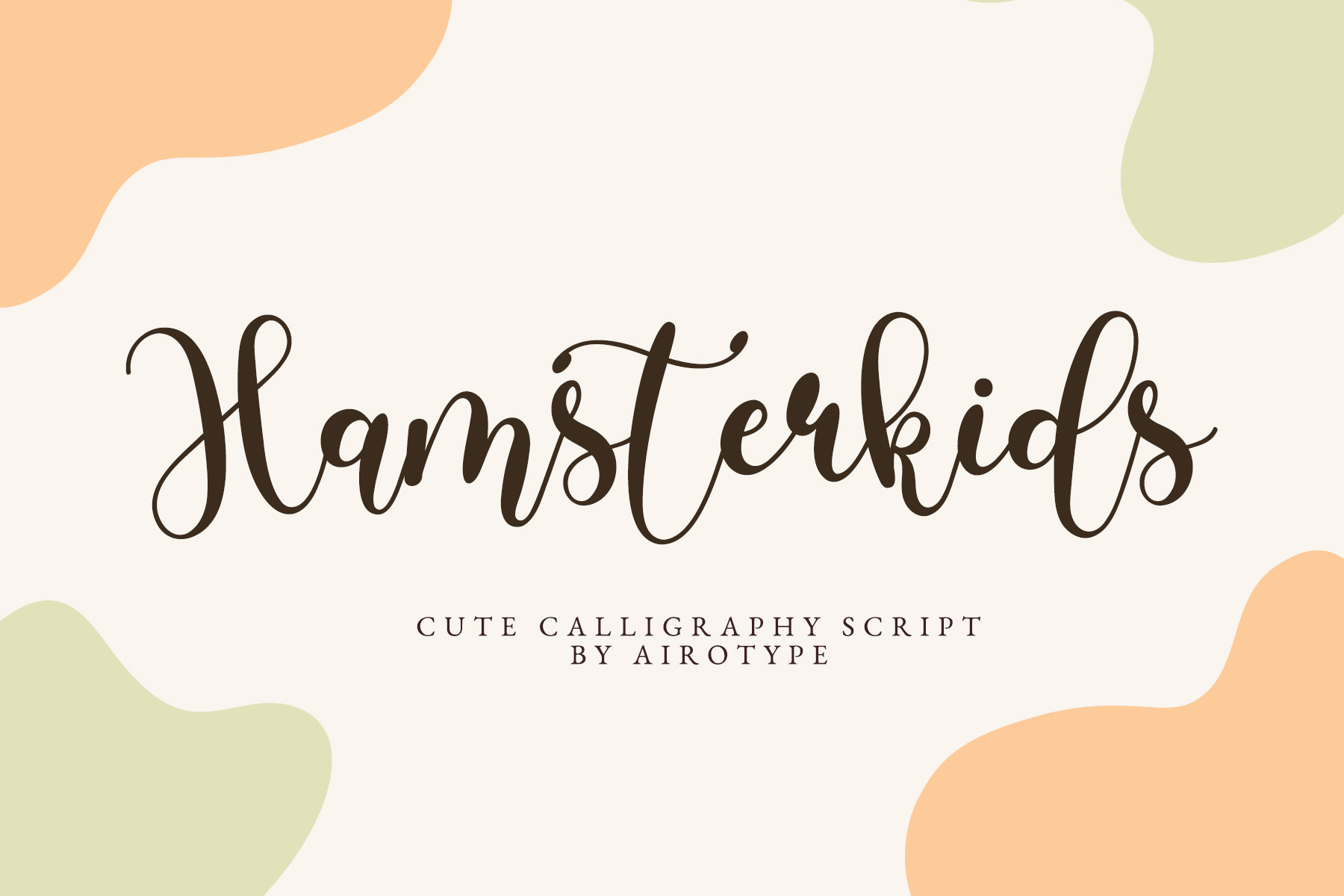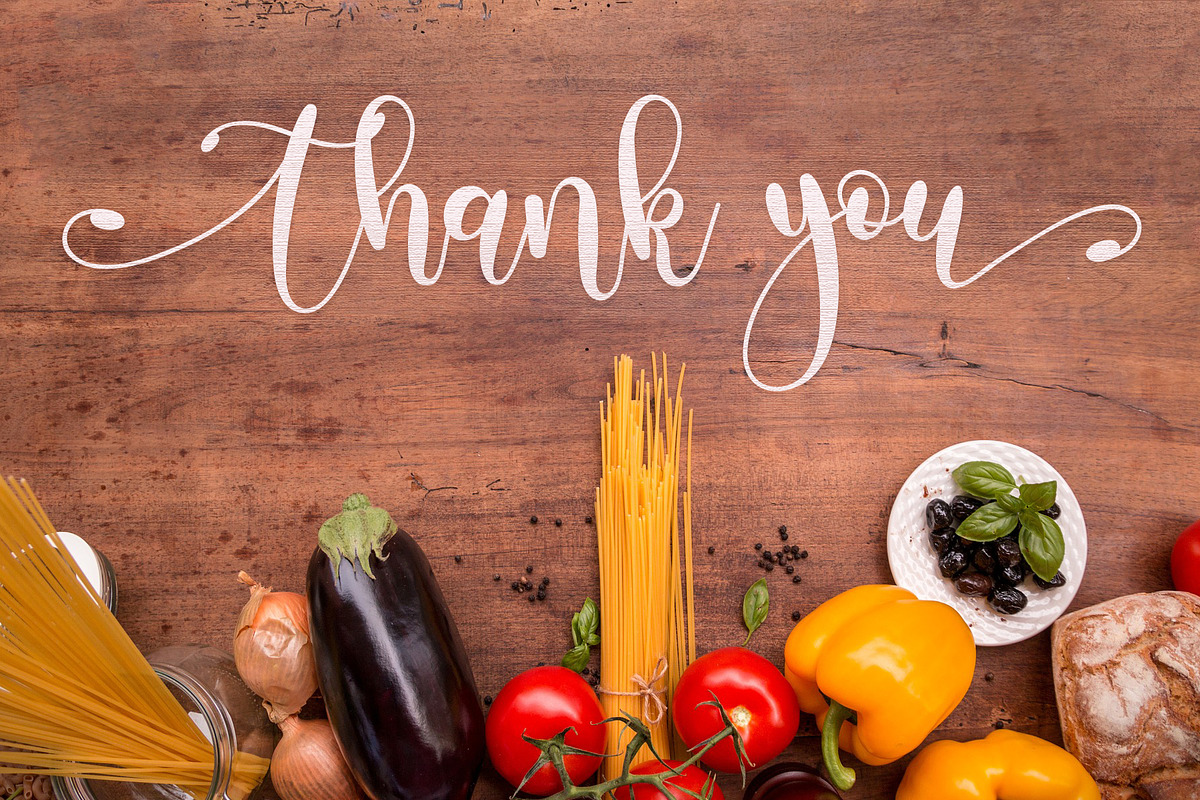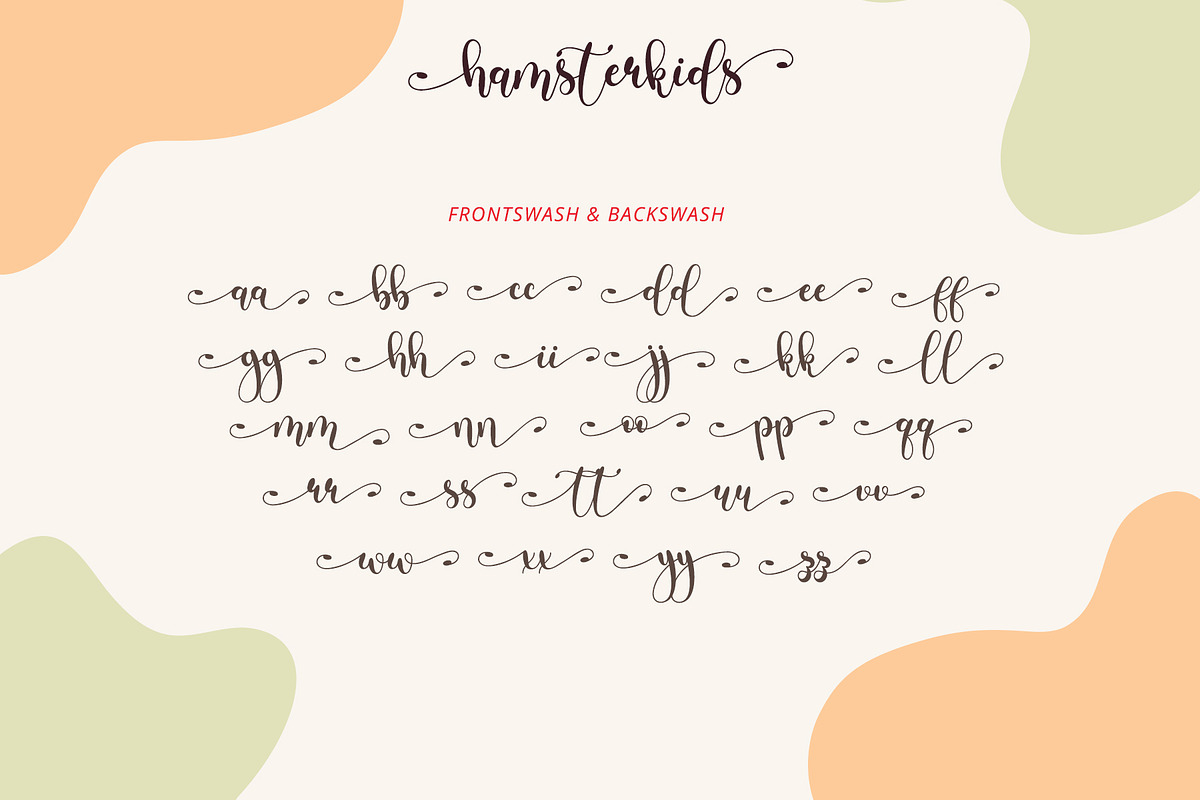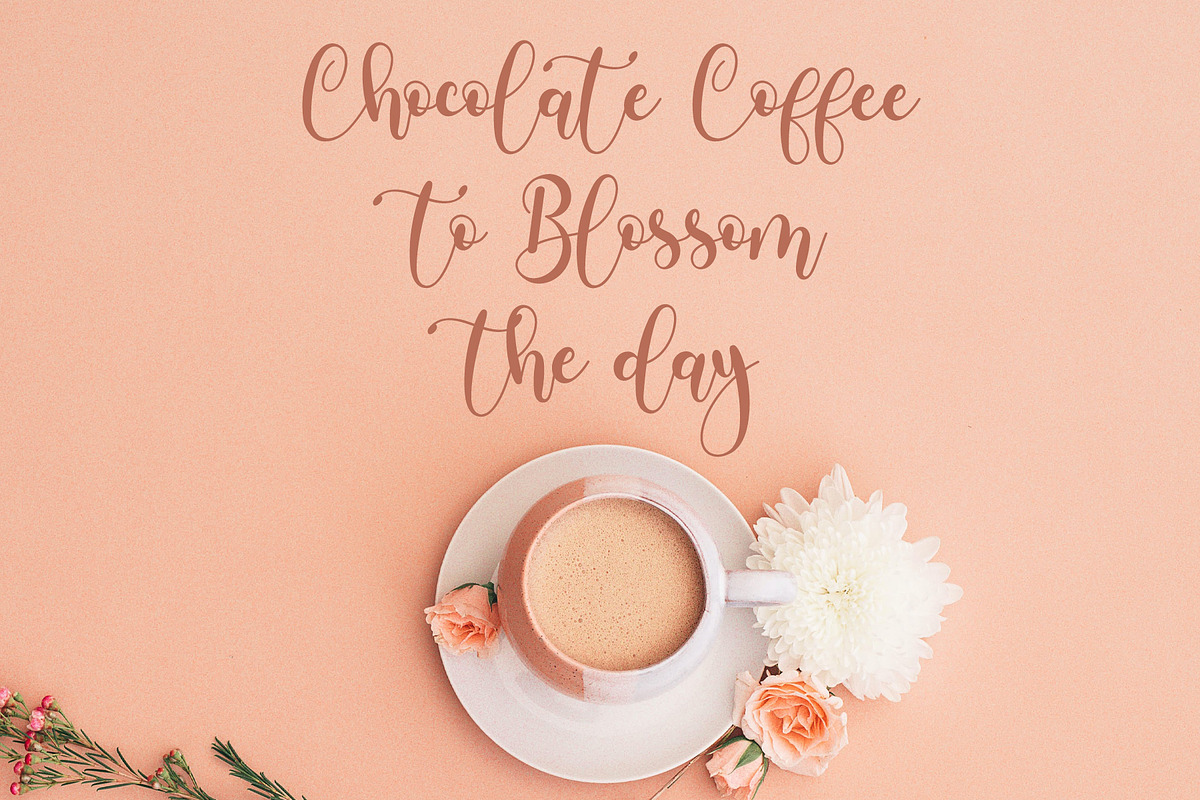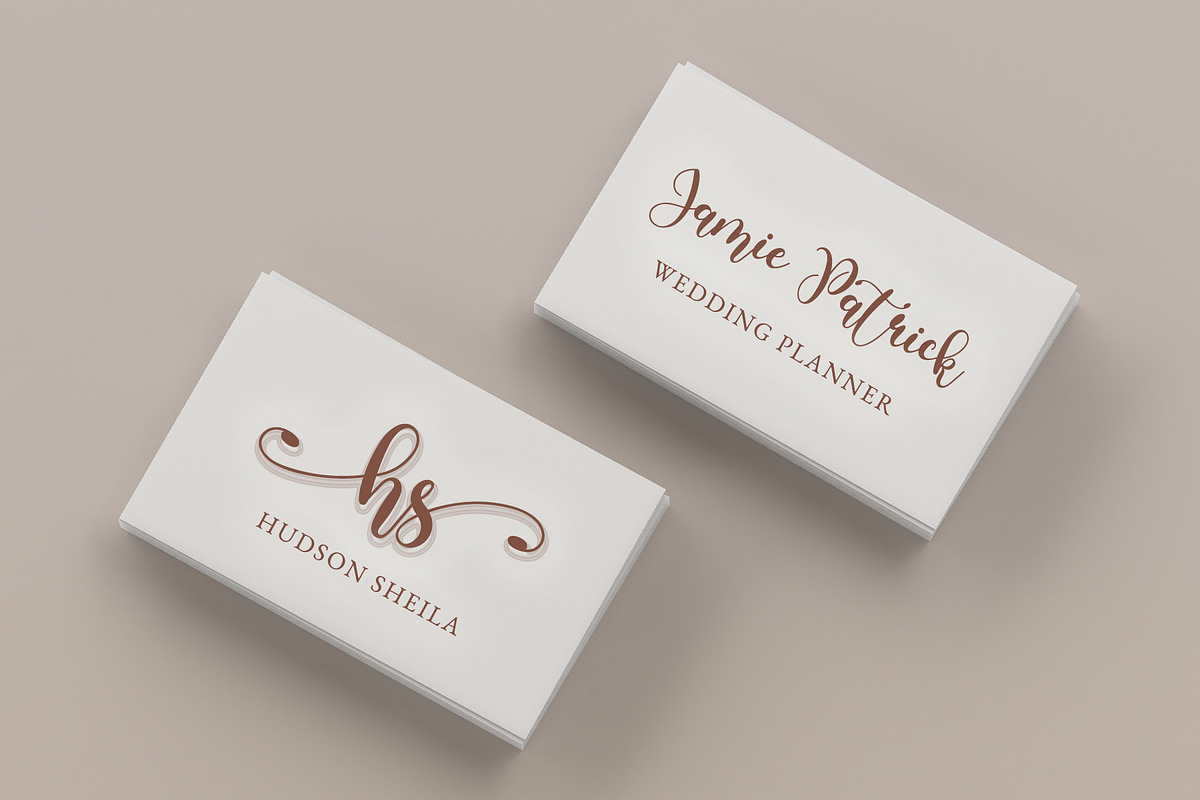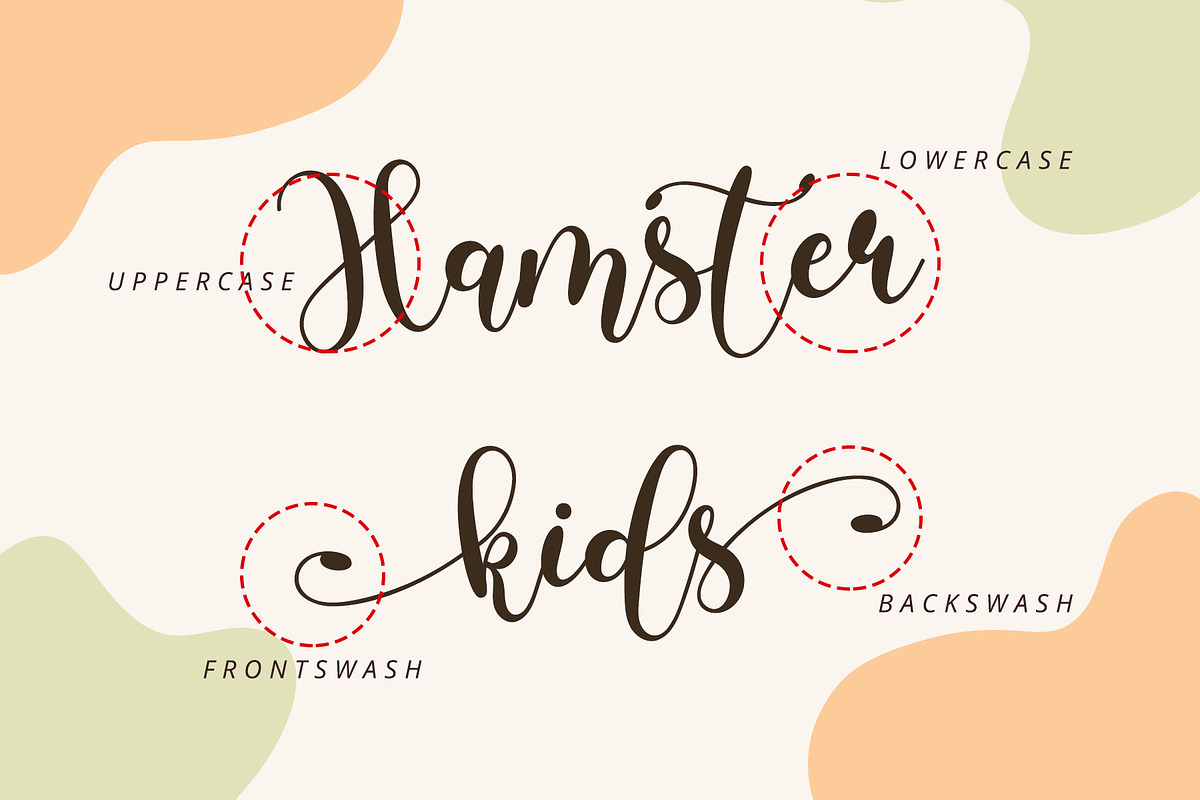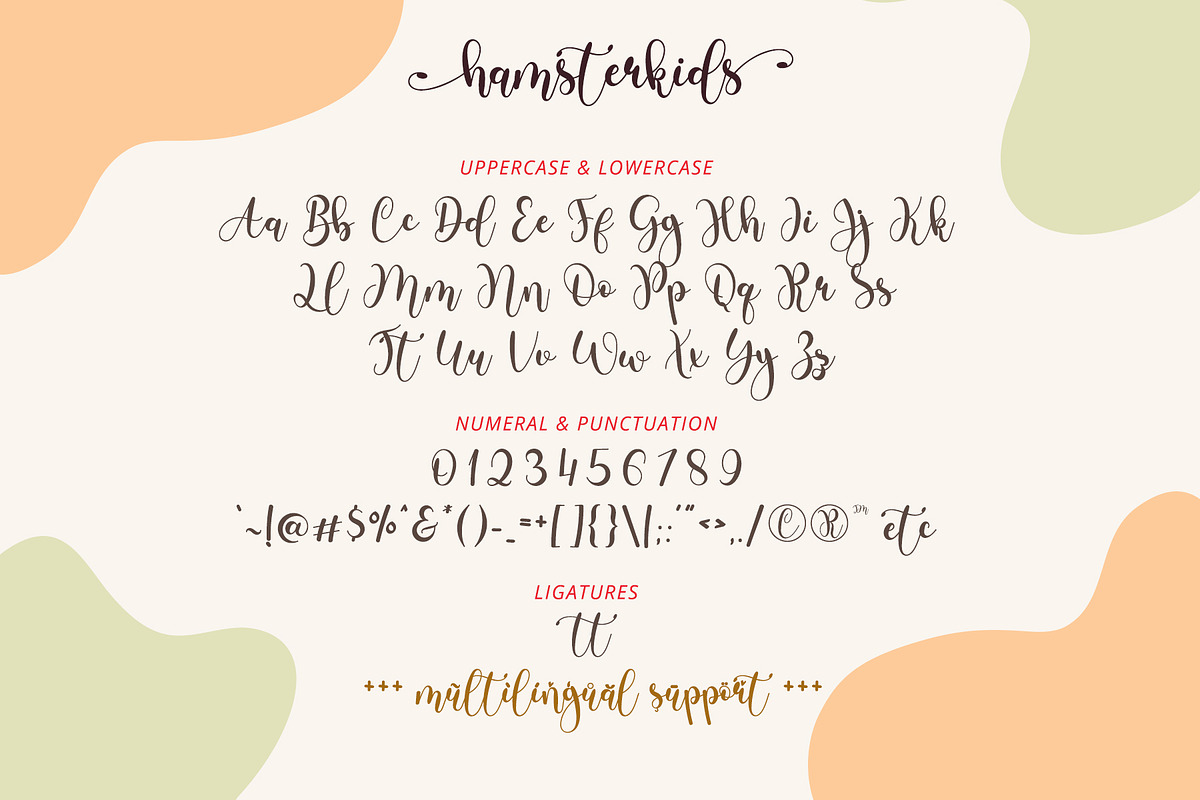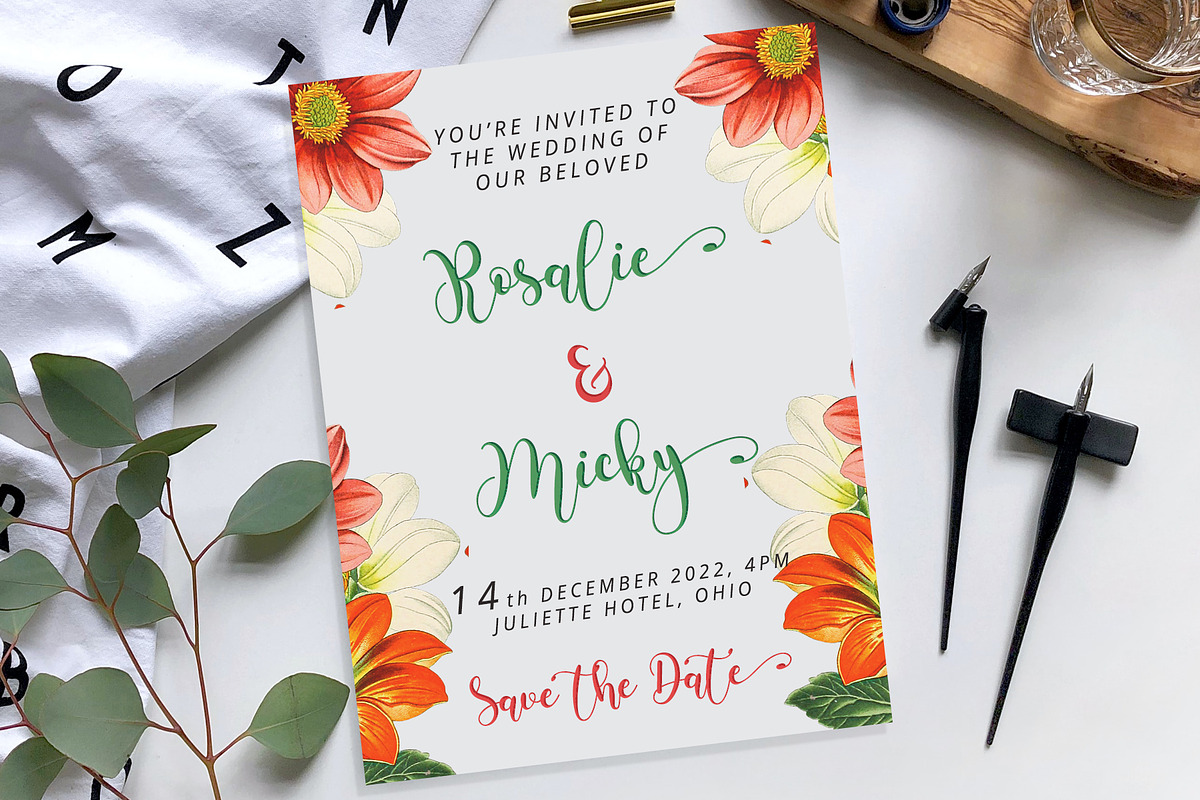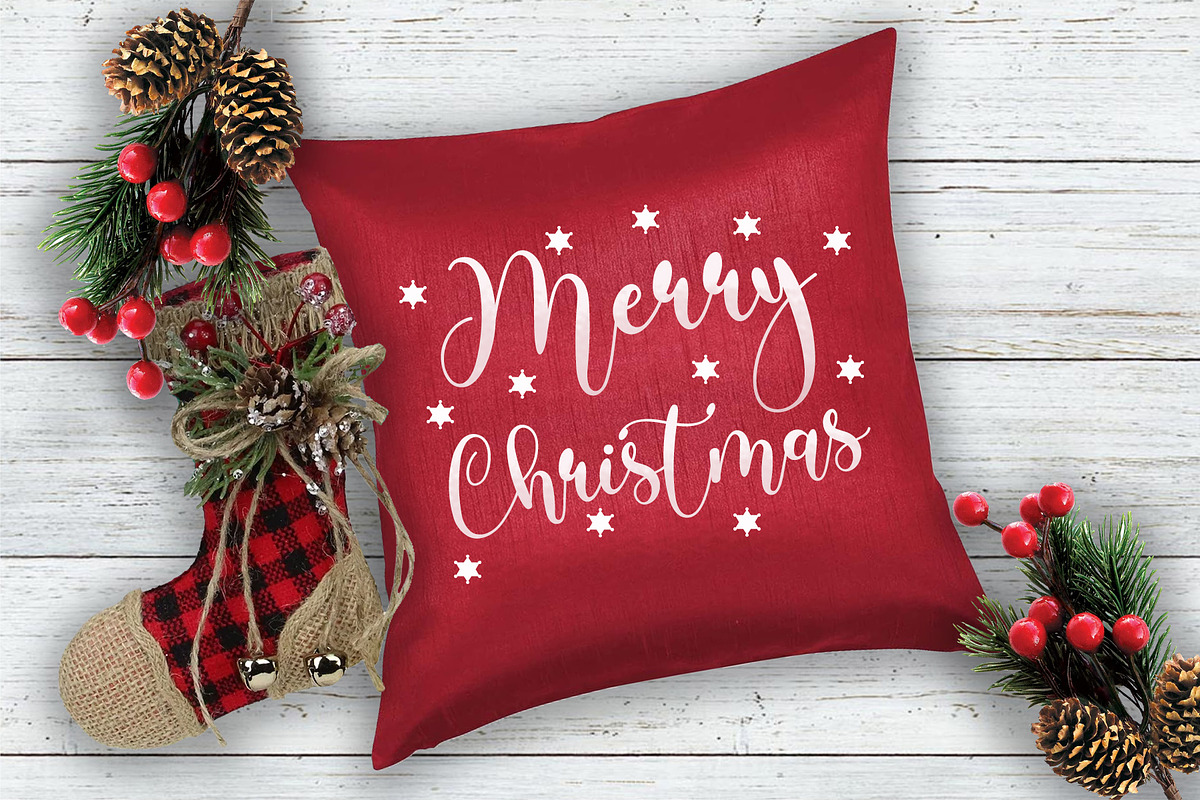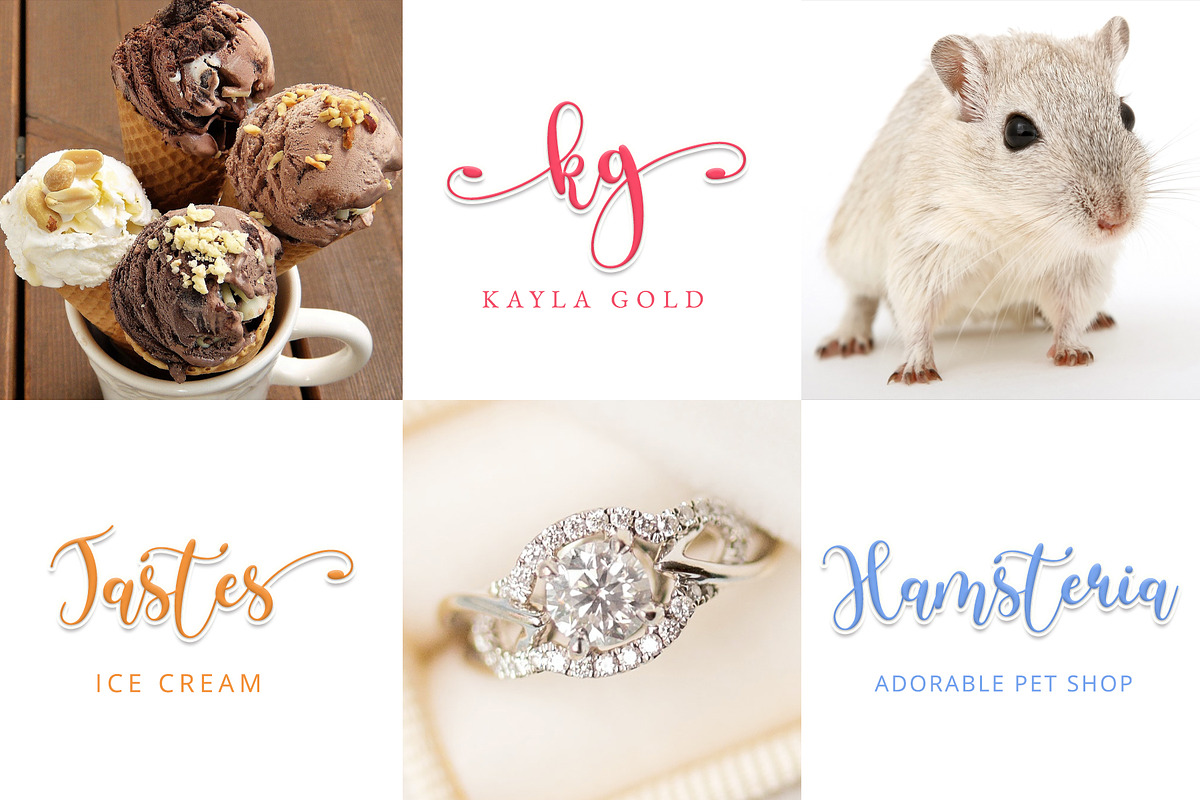
Hamsterkids - Bouncy Script Font
Hamsterkids is bouncy calligraphy font combining modernity and sweetness. It is flowing, unique, and cute in the same time. This font is suitable for wide ranges of project, such as wedding invitation, branding, logo, social media, and many others.
- Uppercase & Lowercase (include PUA-Encoded extra glyphs)
- Most Multilingual Accent